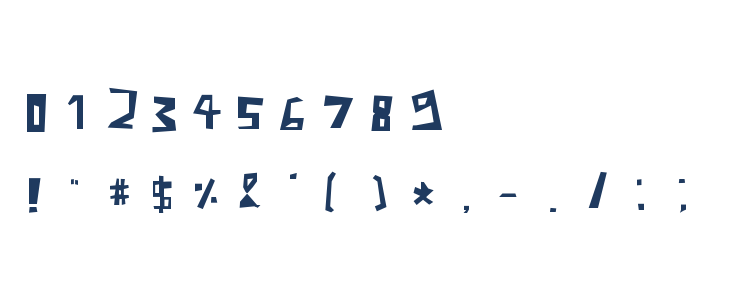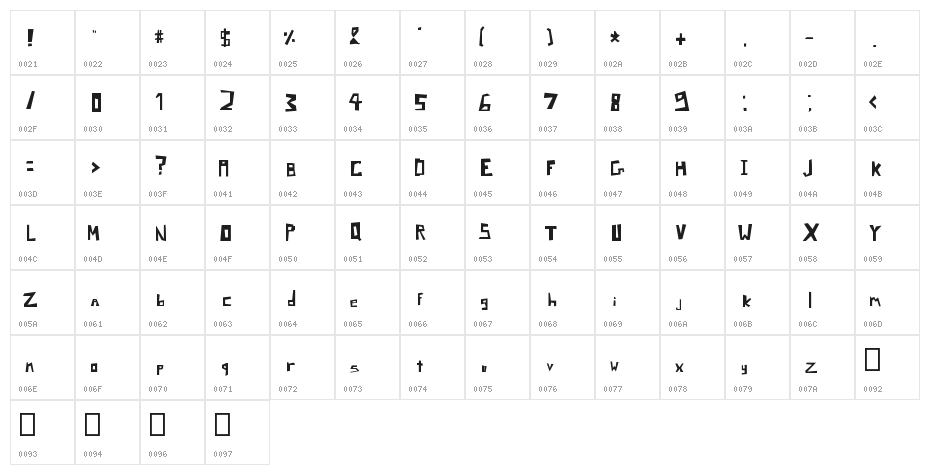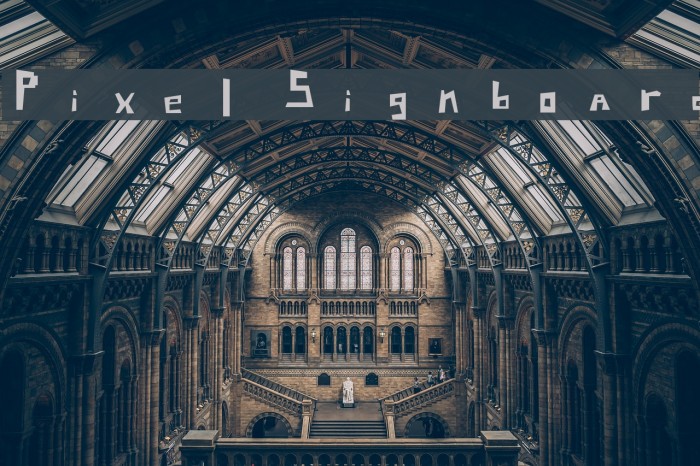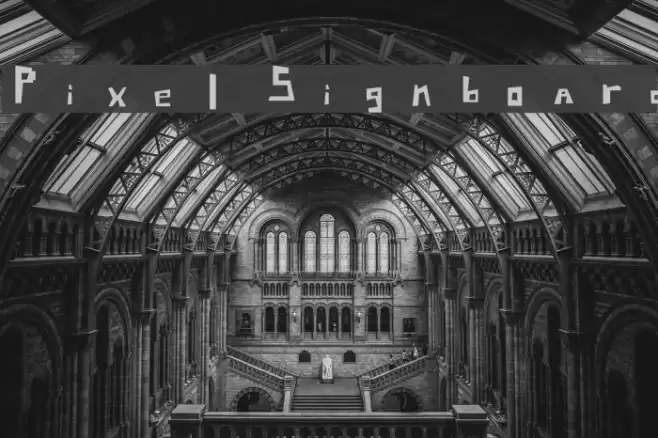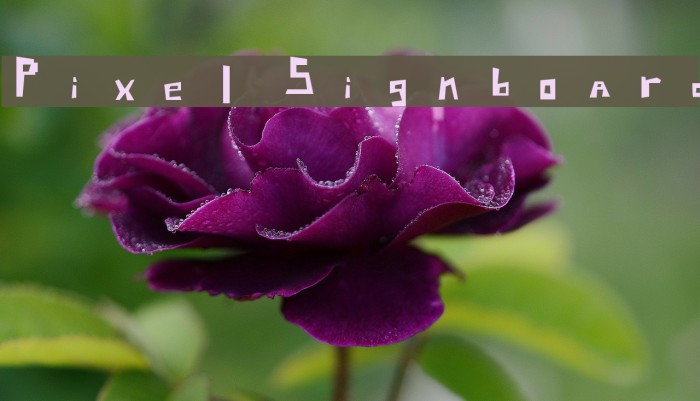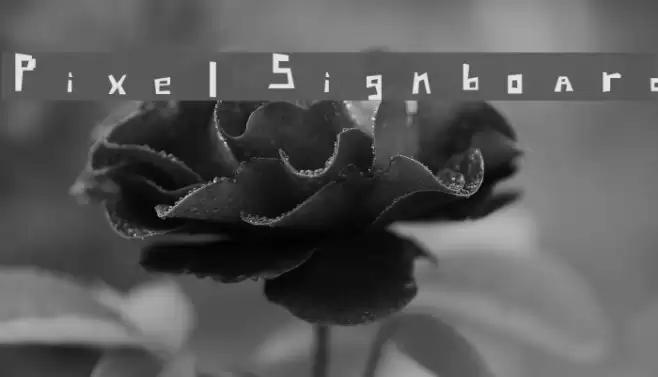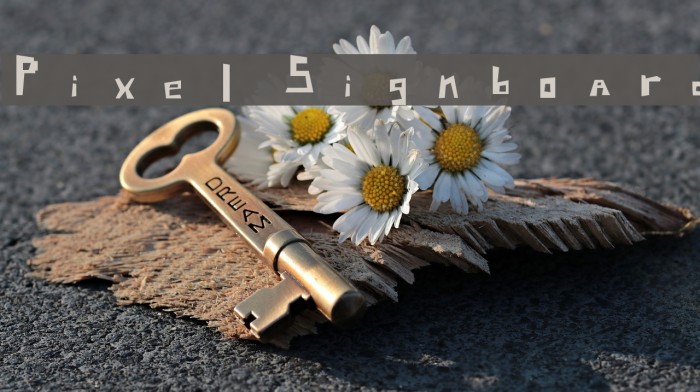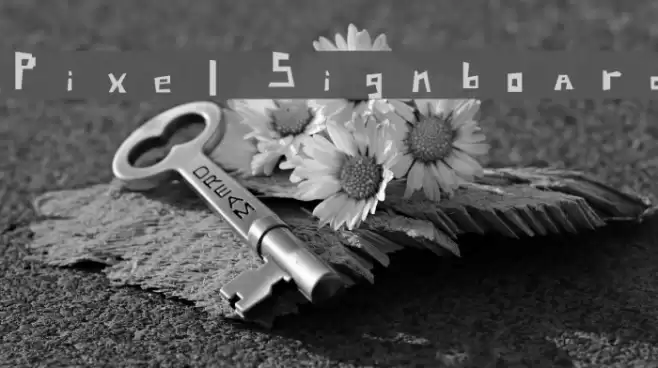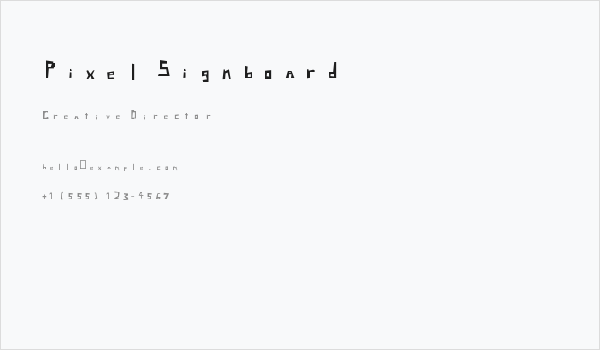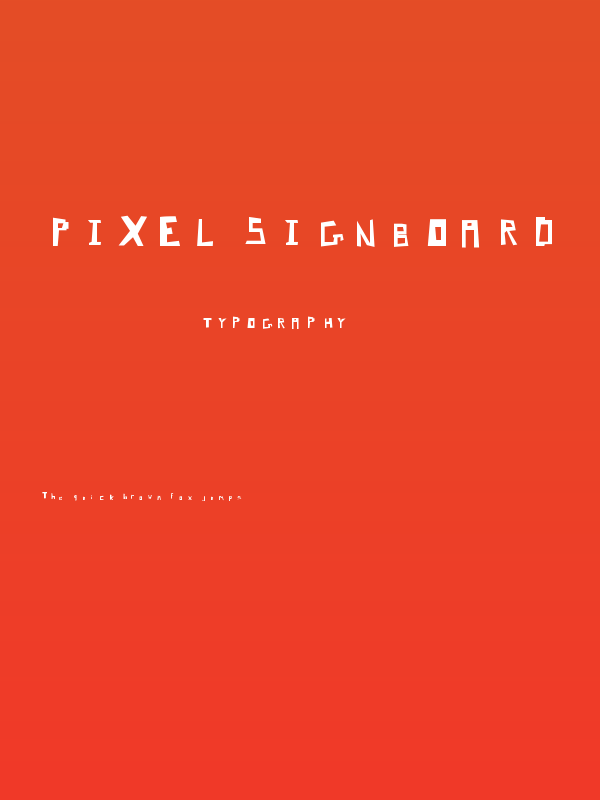
Pixel Signboard Font
Pixel Signboard Description
This font features a bold and angular design, reminiscent of digital or pixelated styles. The characters are constructed with sharp, geometric edges, giving them a modern and edgy appearance. The uppercase letters are particularly striking, with a blocky and somewhat irregular form that adds a sense of dynamism and movement. Lowercase letters maintain the angular theme but are slightly more compact. Numbers and special characters follow the same design principles, ensuring consistency across the font. The overall look is both futuristic and playful, making it suitable for creative and unconventional projects.
| Proposed Projects | Ideal for video game graphics, tech-themed posters, and modern digital art. |